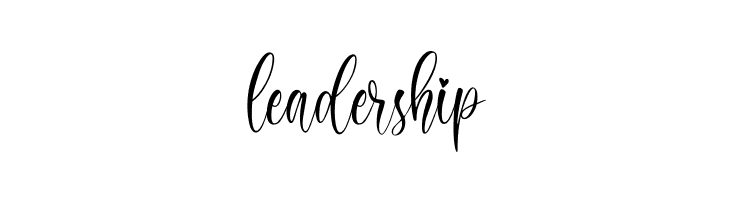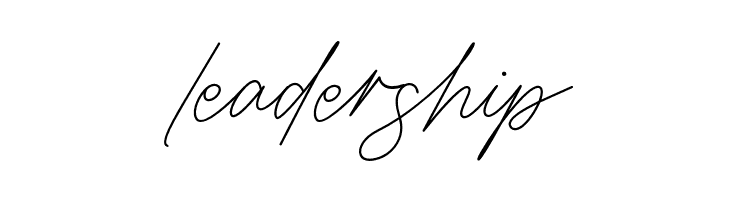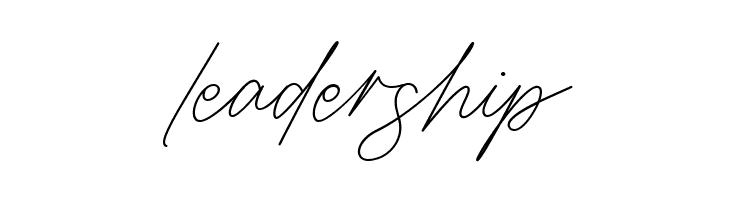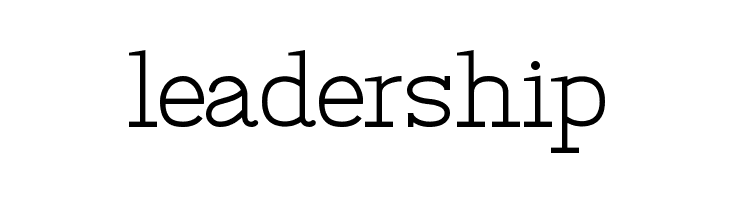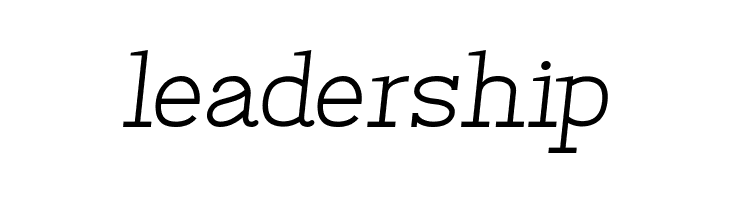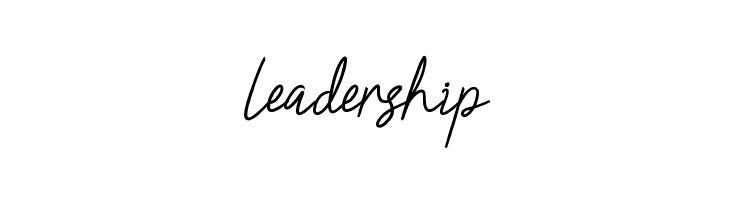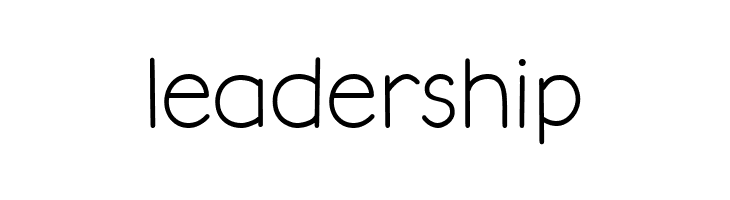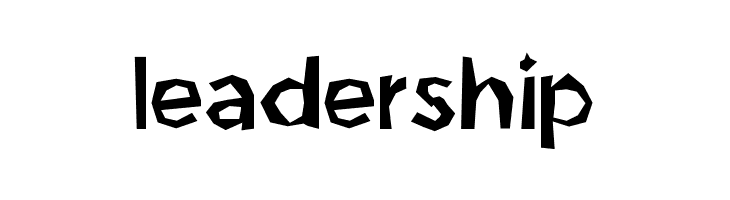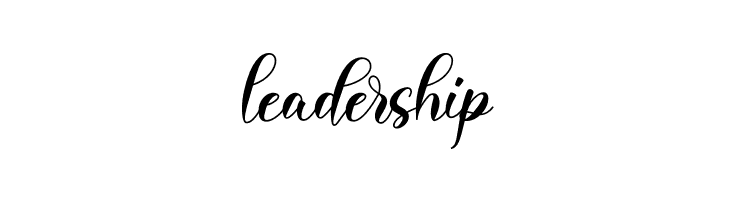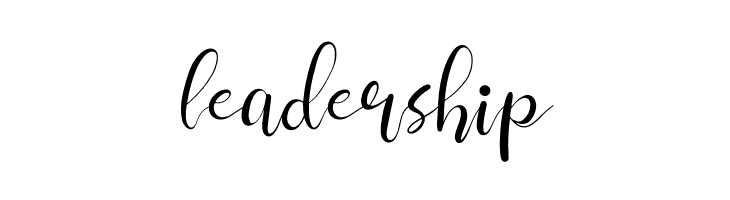
( Font by Mark Burrough - www.teamscope.com.au OFF SITE ) A casual, handwritten font with a friendly and approachable style. Download 490 Downloads
( Font by Mark Burrough - www.teamscope.com.au OFF SITE ) A playful, casual handwritten font with smooth, rounded strokes. Download 1545 Downloads
( Fonts by team scope - Katie Young - Personal-use only. For commercial use please contact owner. ) A playful, casual handwritten font with smooth, rounded strokes. Download 98 Downloads@WebFont
( Fonts by Masanis Studio - Naufal Anis - Personal-use only. For commercial use please contact owner. ) An elegant script font with flowing, interconnected letters and a handcrafted feel. Download 30 Downloads@WebFont
( Font by Mark Burrough - www.teamscope.com.au OFF SITE ) A bold, playful handwritten font with rounded, consistent strokes. Download 283 Downloads
( Fonts by team scope - Katie Young - Personal-use only. For commercial use please contact owner. ) A bold, playful handwritten font with rounded letterforms. Download 62 Downloads@WebFont
( Font by Mark Burrough - www.teamscope.com.au OFF SITE ) A playful, casual handwritten font with smooth lines and consistent stroke width. Download 390 Downloads
( Font by Mark Burrough - www.teamscope.com.au OFF SITE ) A playful, handwritten font with a casual and friendly vibe. Download 576 Downloads
( Fonts by Nico Muslib - Personal-use only. For commercial use please contact owner. ) A playful, handwritten script font with elegant curves and high contrast. Download 27 Downloads@WebFont
( Fonts by CalligraphyFonts - Personal-use only. For commercial use please contact owner. ) A modern serif font with medium contrast and classic elegance. Download 42 Downloads@WebFont
( Fonts by CalligraphyFonts - Personal-use only. For commercial use please contact owner. ) An elegant italic font with a clean, sophisticated style. Download 33 Downloads@WebFont
( Fonts by Fian Cahyo Dwi Prasetyo - Personal-use only. For commercial use please contact owner. ) A bold, angular font with a rugged, handcrafted appearance. Download 34 Downloads@WebFont
( Fonts by Khurasan - Syaf Rizal - Personal-use only. For commercial use please contact owner. ) A playful, bold font with rounded, bubbly characters perfect for fun designs. Download 31 Downloads@WebFont
( Fonts by Perspectype Studio - Personal-use only. For commercial use please contact owner. ) An elegant, flowing script font with ornate, connected letterforms. Download 22 Downloads@WebFont
( Fonts by Kong Font - fontkong.com - Personal-use only. For commercial use please contact owner. ) A flowing, cursive font with elegant, sweeping strokes and a handwritten appearance. Download 44 Downloads@WebFont
( Fonts by Edric Studio - Personal-use only. For commercial use please contact owner. ) A cursive, handwritten-style font with fluid, interconnected letters. Download 35 Downloads@WebFont
( Fonts by Alpaprana - Personal-use only. For commercial use please contact owner. ) A fluid and elegant script font with connected cursive strokes. Download 24 Downloads@WebFont
( Fonts by Alpaprana - Personal-use only. For commercial use please contact owner. ) A graceful, cursive script font with elegant loops and swirls. Download 26 Downloads@WebFont
( Fonts by RaffaSyad Studio - www.creativefabrica.com/designer/r-studio/ - Personal-use only. For commercial use please contact owner. ) A charming and elegant handwritten font with fluid, cursive strokes. Download 126 Downloads@WebFont
( Fonts by RaffaSyad Studio - Rikki Ahmad Ibrahim - Personal-use only. For commercial use please contact owner. ) A modern, elegant script font with flowing, interconnected characters. Download 58 Downloads@WebFont
( Fonts by Cooldesignlab - Kurniadi Saputra - Personal-use only. For commercial use please contact owner. ) A bold, modern font with a structured and cohesive design. Download 38 Downloads@WebFont
( Fonts by Brithos Type - Personal-use only. For commercial use please contact owner. ) A modern, rounded sans-serif font with a playful and approachable style. Download 21 Downloads@WebFont
( Fonts by Billy Argel Fonts - www.billyargel.com - Personal-use only. For commercial use please contact owner. ) A bold, elegant script font with flowing cursive design and high contrast. Download 735 Downloads@WebFont
( Fonts by PutraCetol Studio - www.putracetol.com - Personal-use only. For commercial use please contact owner. ) A delicate and flowing script font with elegant, interconnected letters. Download 24 Downloads@WebFont
( Fonts by Heinzel Std - Personal-use only. For commercial use please contact owner. ) A graceful, cursive script font with fluid, natural strokes. Download 21 Downloads@WebFont
( Fonts by Letterara - Thomas Aradea - Personal-use only. For commercial use please contact owner. ) A dynamic and flowing script font with elegant, fluid letterforms. Download 45 Downloads@WebFont
( Fonts by a Neale Davidson - www.pixelsagas.com. Personal-use only. For commercial use please contact owner. ) A bold, italicized font with a modern and dynamic style. Download 1522 Downloads@WebFont
( Fonts by a Neale Davidson - www.pixelsagas.com. Personal-use only. For commercial use please contact owner. ) A bold, geometric hollow font with a modern and futuristic style. Download 186 Downloads@WebFont